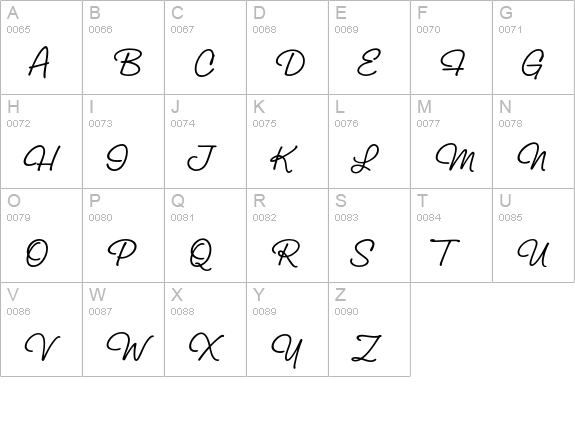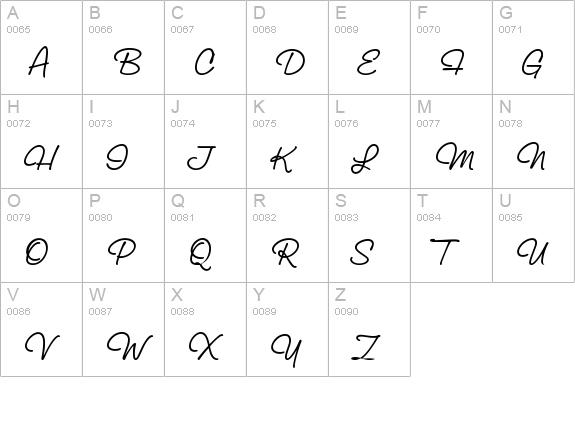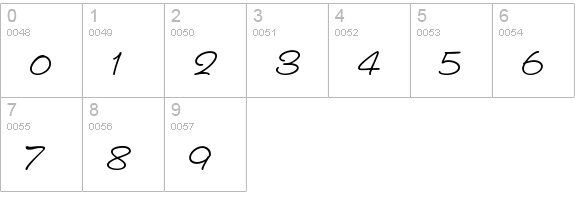
StudioScriptICG font is a beautifully crafted typeface that exudes elegance and sophistication. With its flowing script style and intricate details, this font is perfect for adding a touch of charm to any design project. Whether you're working on invitations, branding, or any other creative endeavor, StudioScriptICG will bring a sense of refinement and style. The best part? StudioScriptICG font is completely free to download at FontsMarket.com. This means you can easily add this stunning font to your collection without any cost. Don't miss out on the opportunity to enhance your designs with the timeless beauty of StudioScriptICG font. Download it now and elevate your projects to the next level.